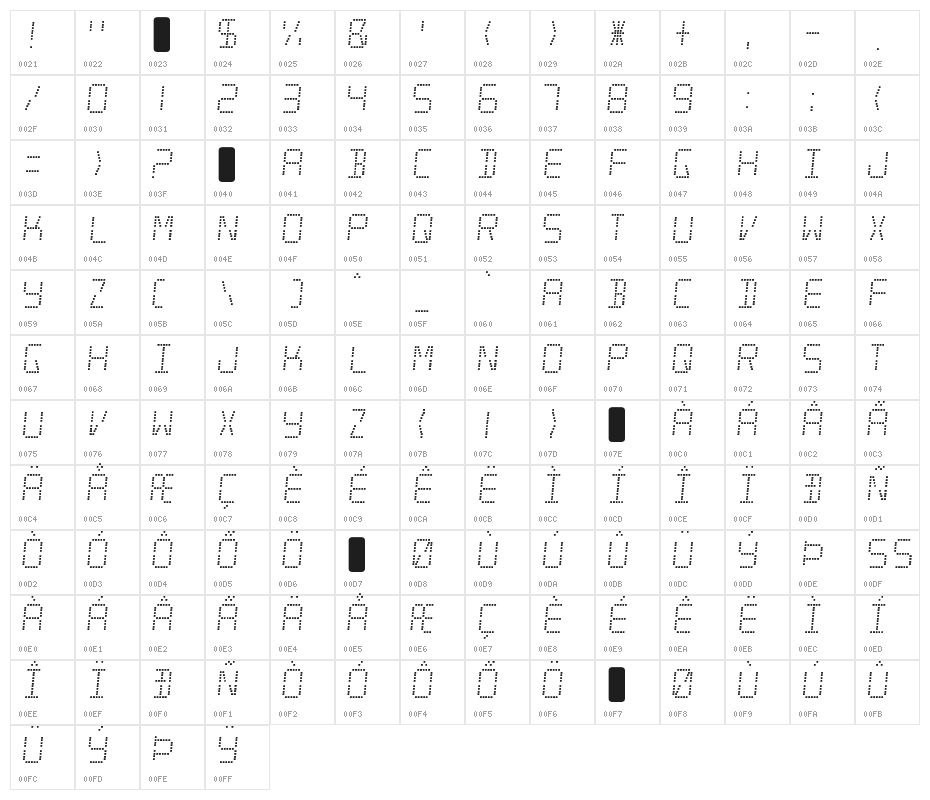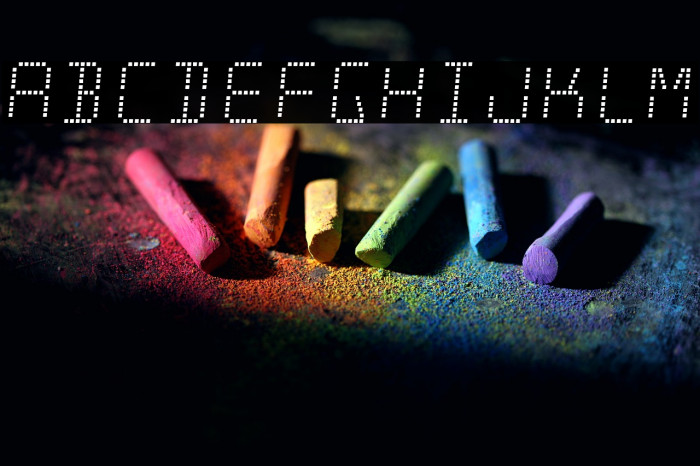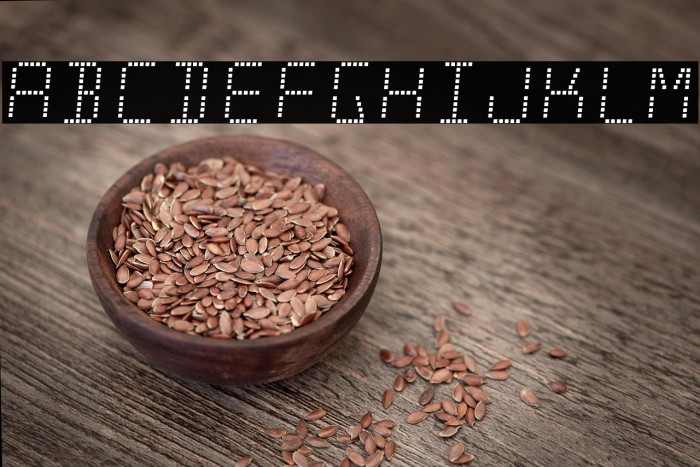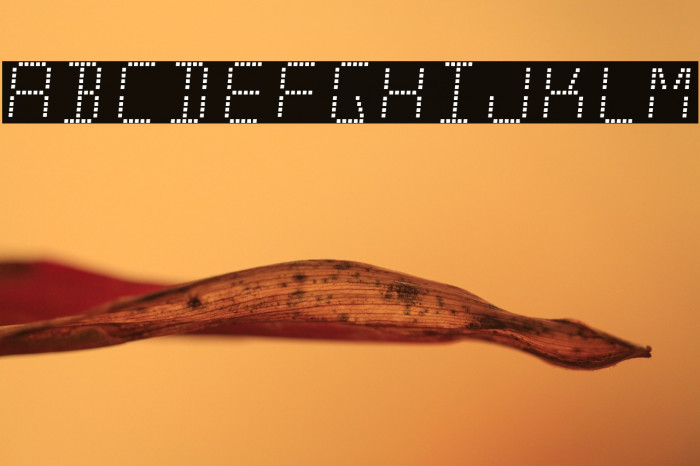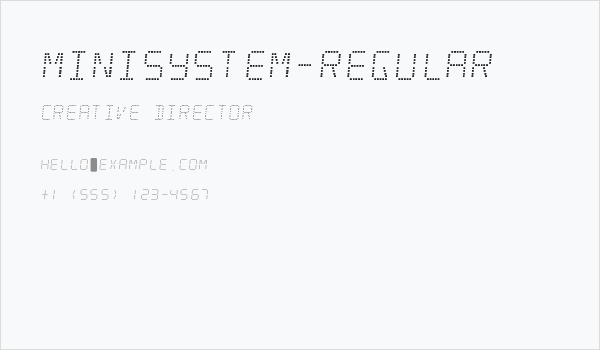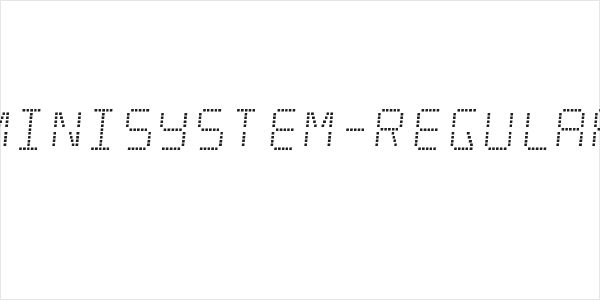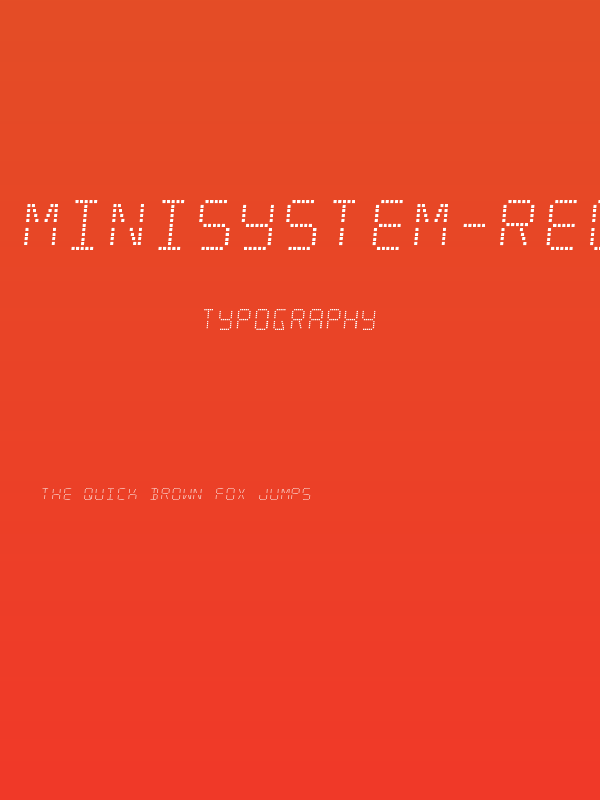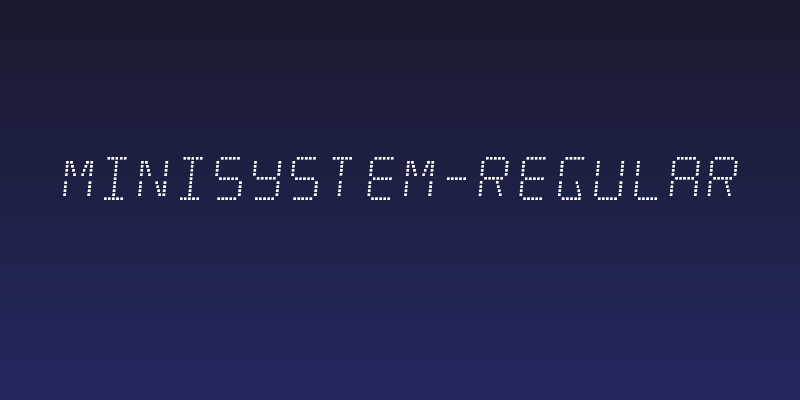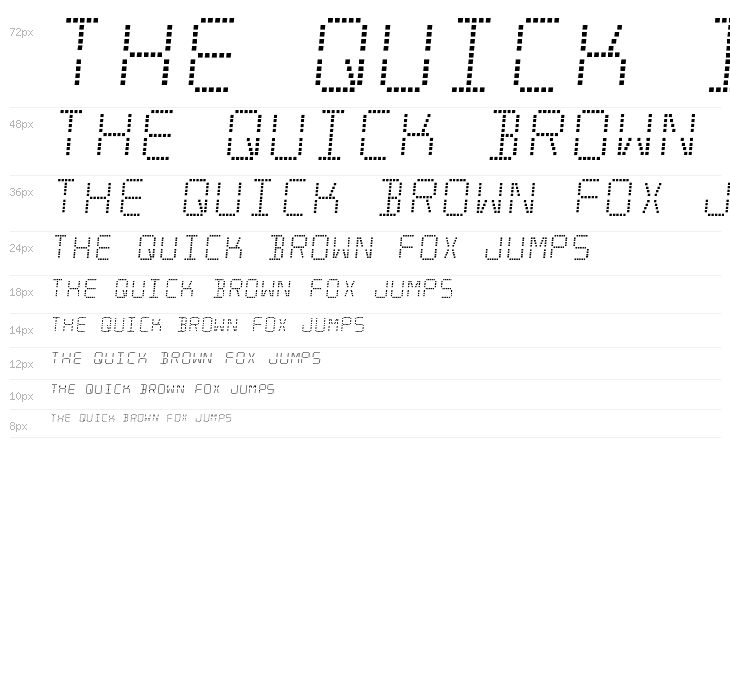
Minisystem-Regular Font
Minisystem-Regular Description
This font features a unique, pixelated design that mimics the appearance of old digital displays or dot matrix printers. Each character is composed of a grid of small squares, giving it a distinctly retro and technological feel. The uppercase and lowercase letters maintain a consistent style, with clean lines and geometric shapes. Numbers and special characters are equally well-defined, ensuring readability while maintaining the overall aesthetic. This font is perfect for projects that aim to evoke nostalgia or a digital theme.
| Overall Style | Retro, Digital |
| Use Case | Headlines, Logos, Digital Art |
| Proposed Projects | Ideal for retro-themed designs, digital art, video game graphics, and tech-related branding. |